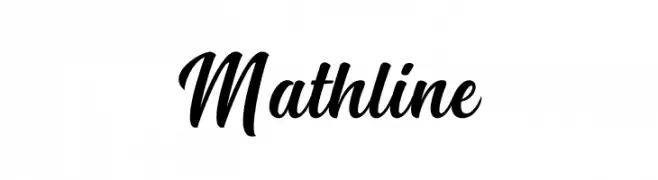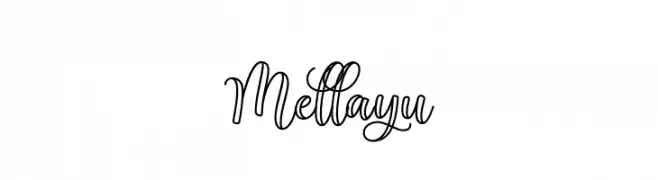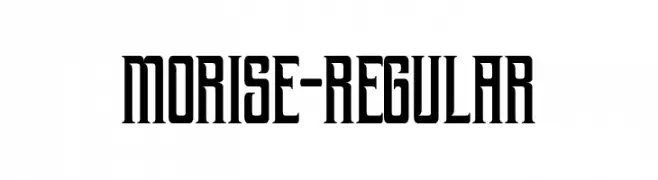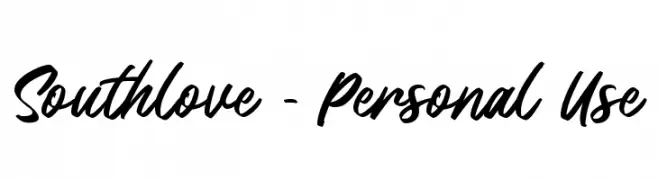
A lively and elegant script font with fluid, cursive strokes.
A playful, handwritten-style font with bold, irregular strokes.
A futuristic, geometric font with sharp angles and a blocky style.
A bold and expressive script font with fluid, connected letterforms.
An elegant, flowing script font with interconnected strokes and decorative swirls.
A dynamic, handwritten font with fluid strokes and artistic flair.
A bold, condensed serif font with sharp, angular serifs and minimal contrast.
A casual, handwritten font with smooth, flowing curves and a lively slant.
A playful, casual handwritten font with irregular strokes and an organic flow.
A classic and elegant script font with flowing, cursive letterforms.